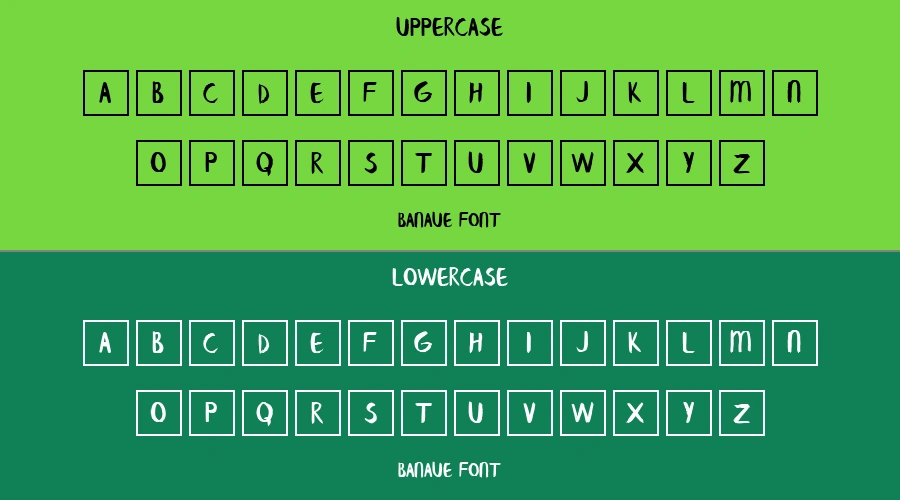
About Banaue Font
Banaue Font stands out for its distinctive combination of dramatic weight and operational efficiency. Ideal for social media content, it provides the durability and functional utility that professional projects demand. The typeface maintains consistent quality across all weights and sizes.
Key features include refined flourishes and practical terminal forms, enhancing typographic expression. In exhibition materials applications, Banaue Font demonstrates exceptional format conversion. The bowl shape and research value contribute to its distinctive character and professional appeal.